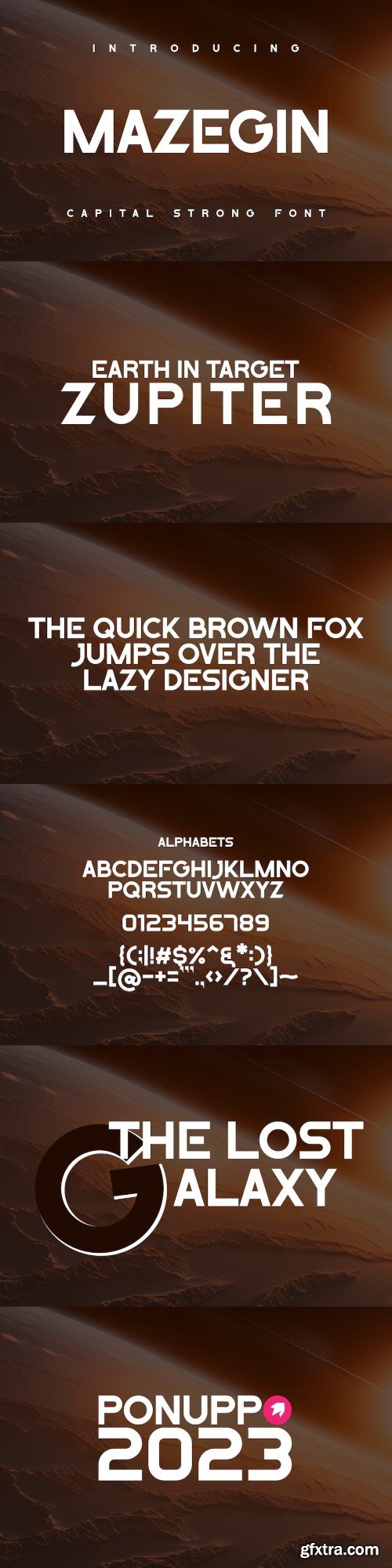
马齐恩字体
Fonts with a bold and bold appearance, slight strokes of technology models, make a sophisticated look and still maintain quality in paragraph writing. This font is suitable for use with things related to the sky world such as atmosphere, rocket, satellite and astonomic world. It could also be for the world of sports fashion or technology covers. thanks